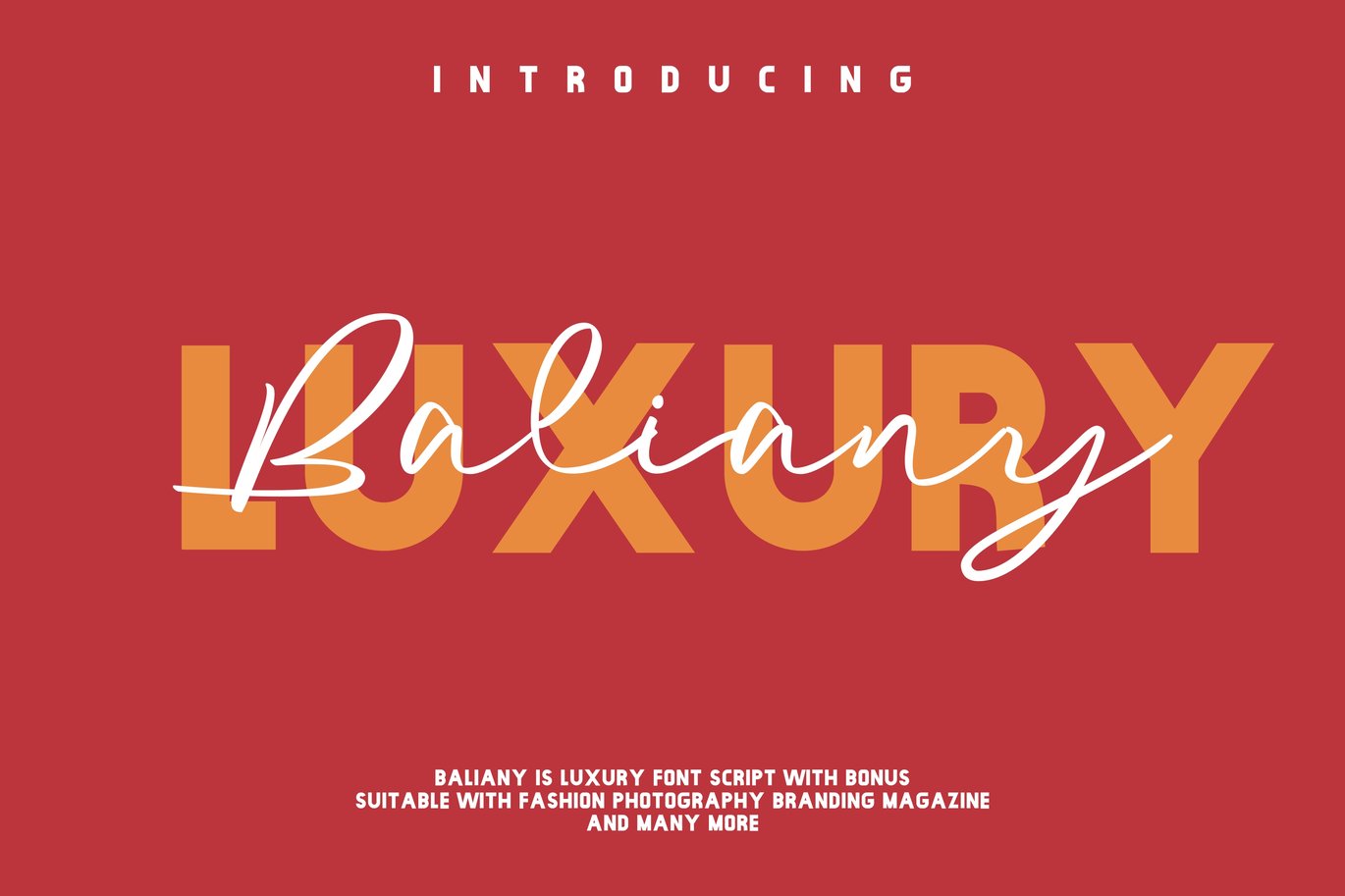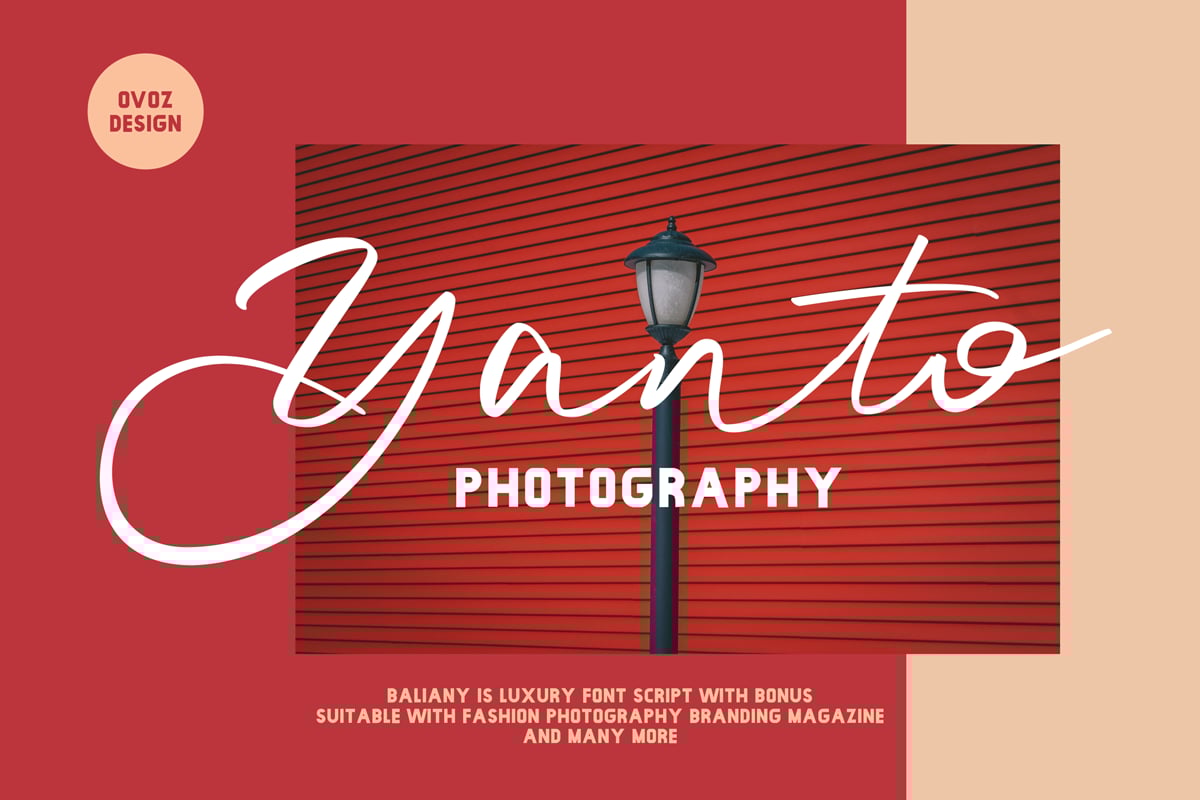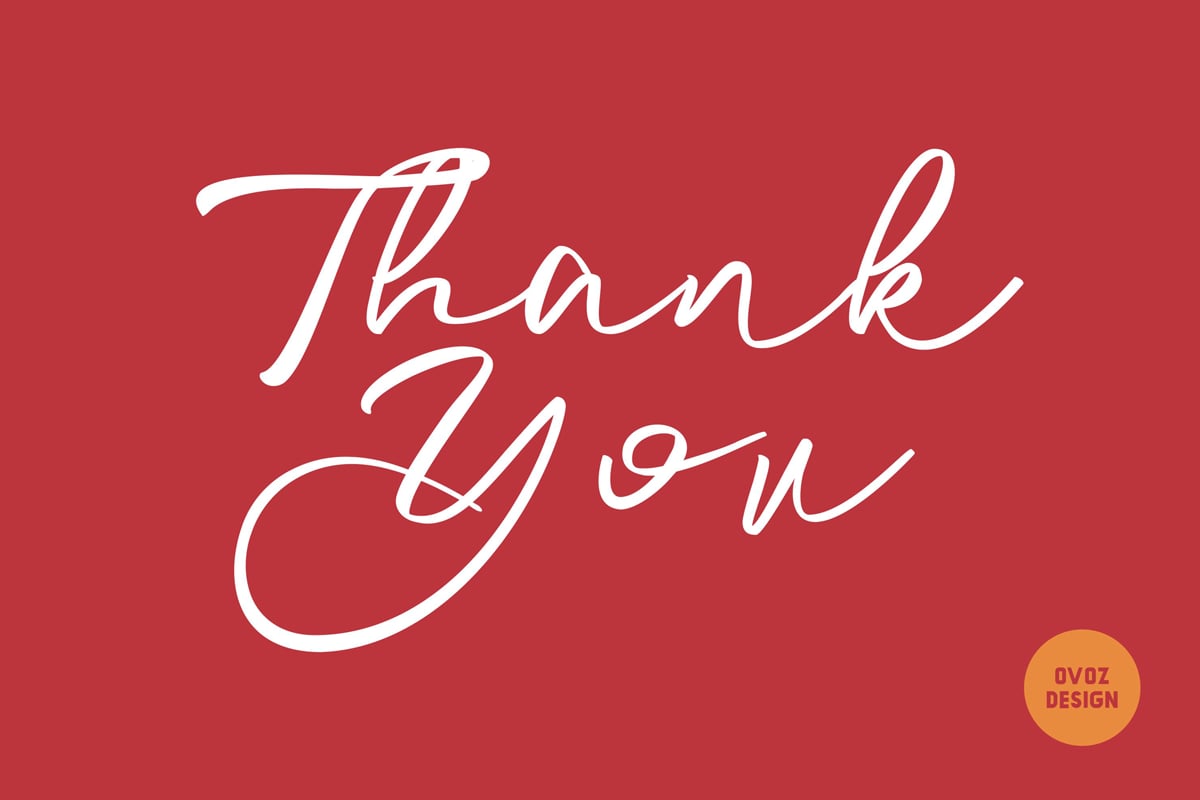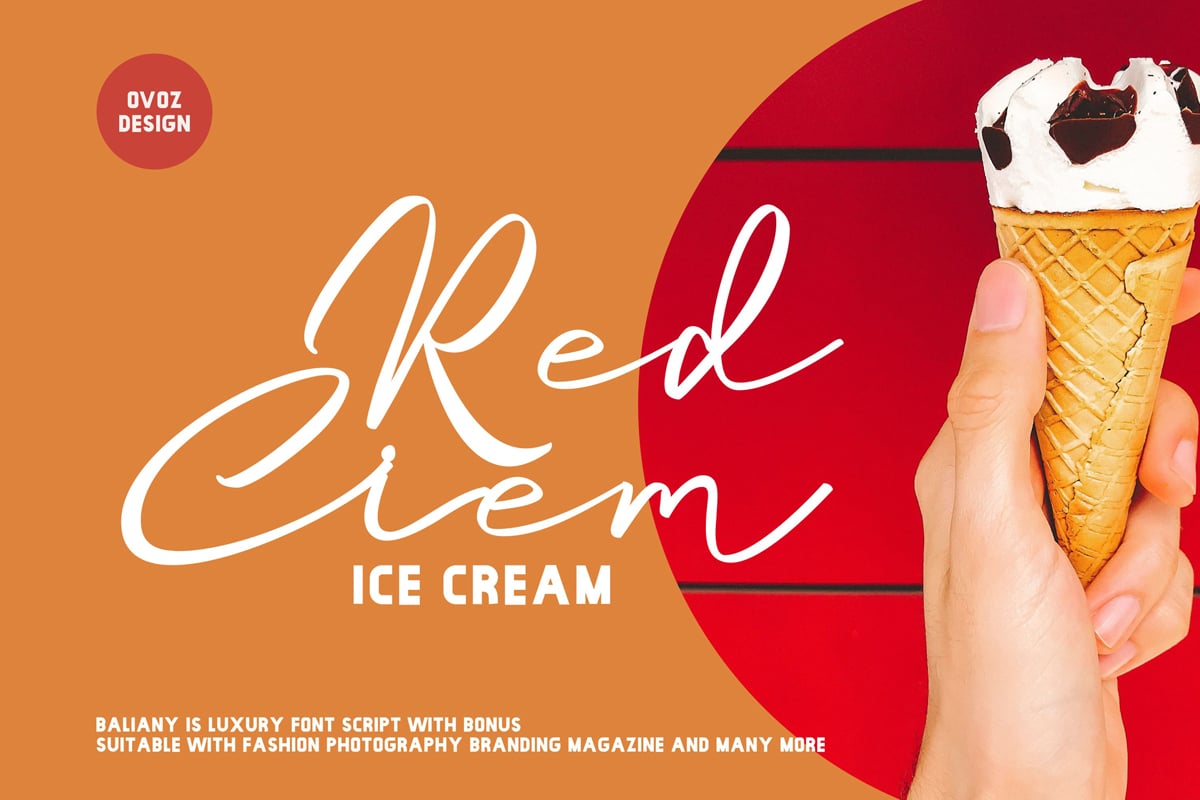
Baliany Script Font
Baliany Script font, is our new item that suitable for your team logo, or community logo.
Great for Logo, Sticker, Jersey, Invitation Card, Brochure, etc.